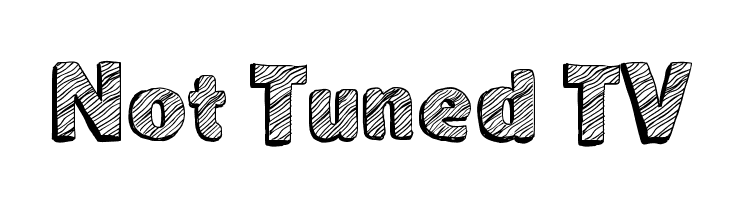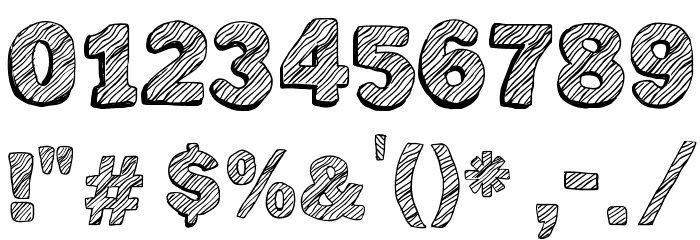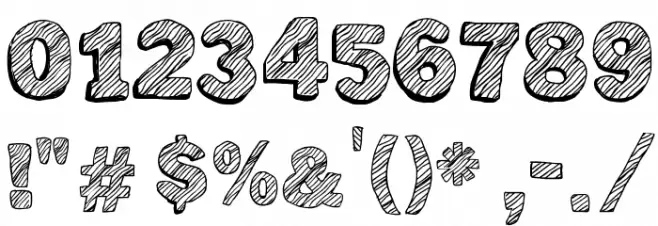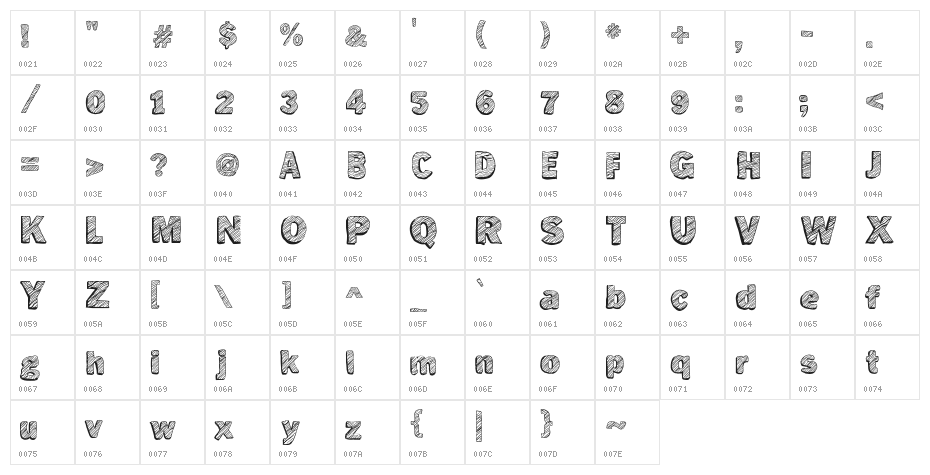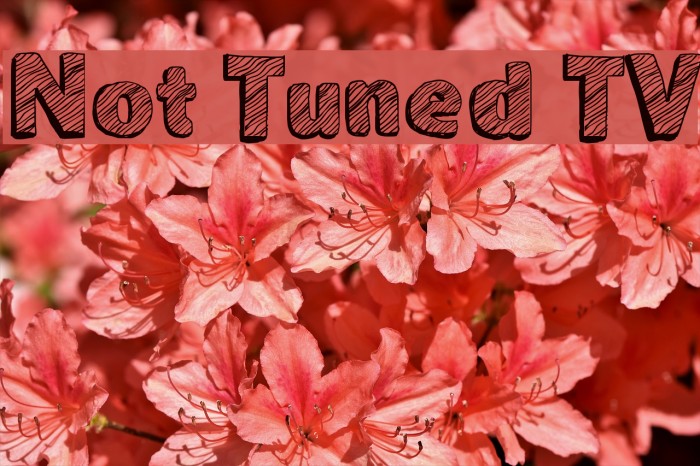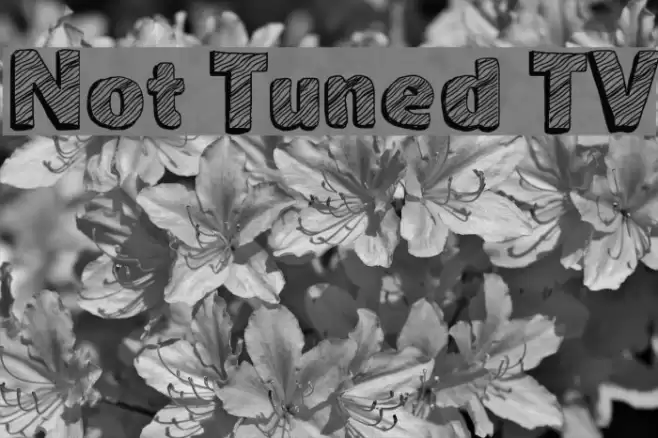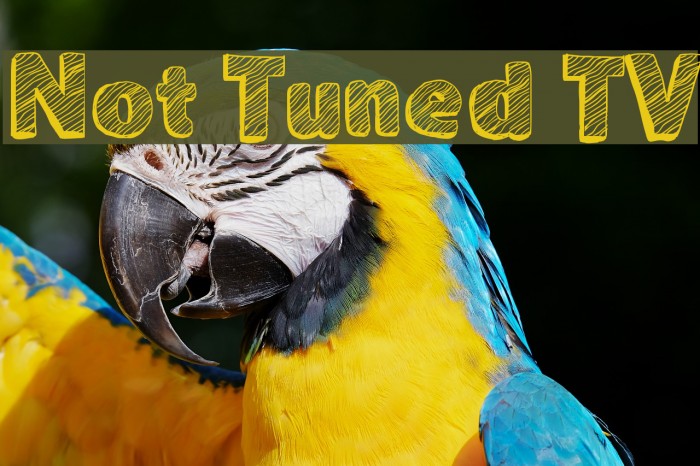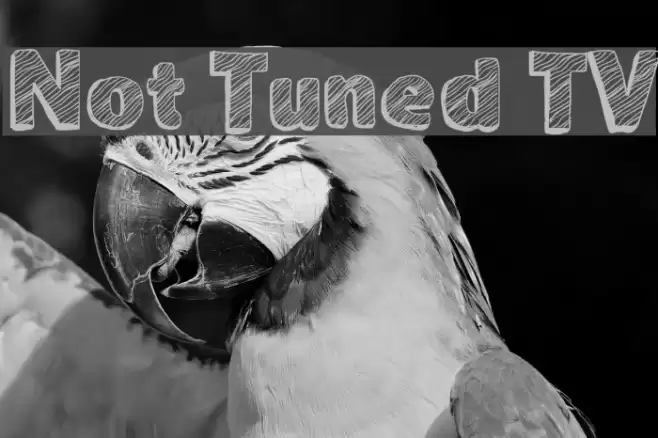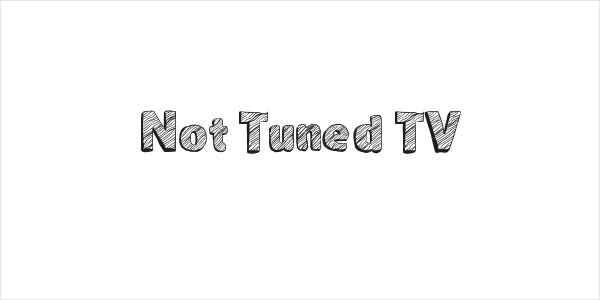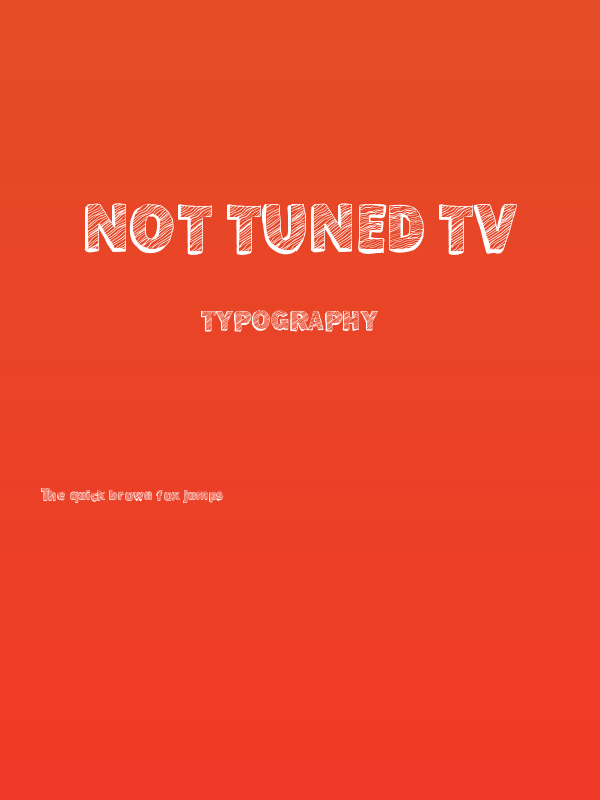
Not Tuned TV Font
Not Tuned TV Description
This font features a playful, hand-drawn style with a sketch-like appearance. Each character is filled with diagonal lines, giving it a textured, shaded look. The letters are bold and rounded, with a slightly irregular outline that enhances the casual, artistic feel. This font is highly decorative and stands out due to its unique, handcrafted aesthetic. It captures attention with its bold presence and creative flair, making it ideal for projects that require a fun and engaging visual element.
| Proposed Projects | Ideal for children's book covers, playful posters, creative branding, and artistic social media graphics. |